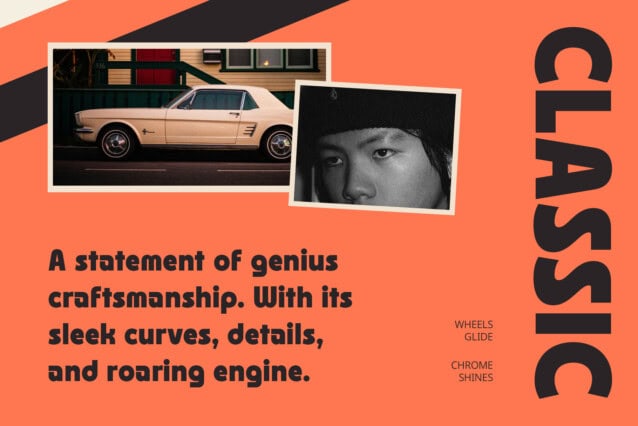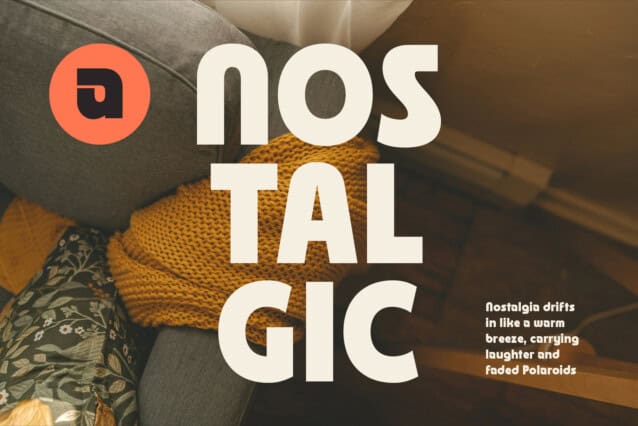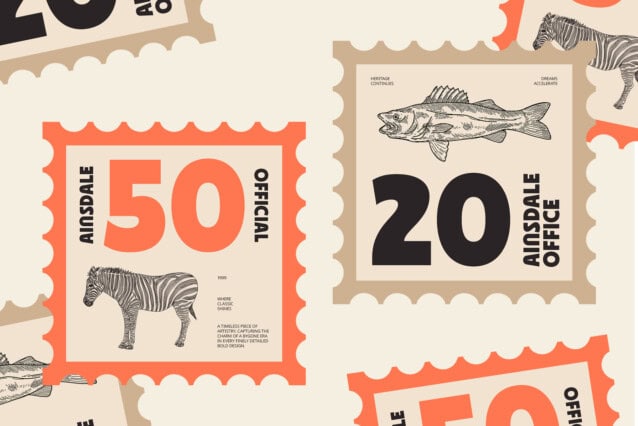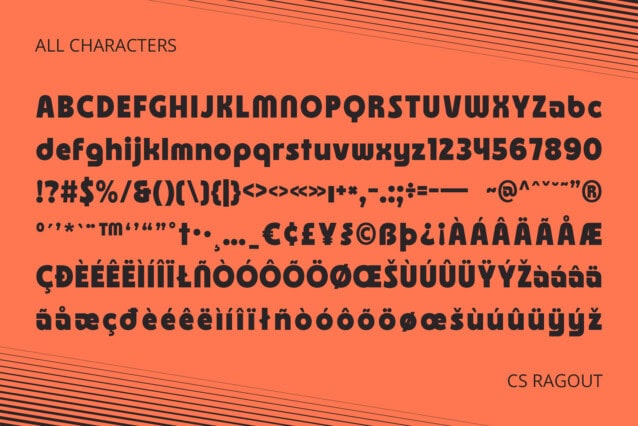
CS Ragout Font
CS Ragout Font is a modern sans-serif display font designed to bring boldness and personality to any design. Its thick, dynamic letterforms exude confidence, while the funky, expressive details add a lively touch. This font is made for those who want to make a statement with style.